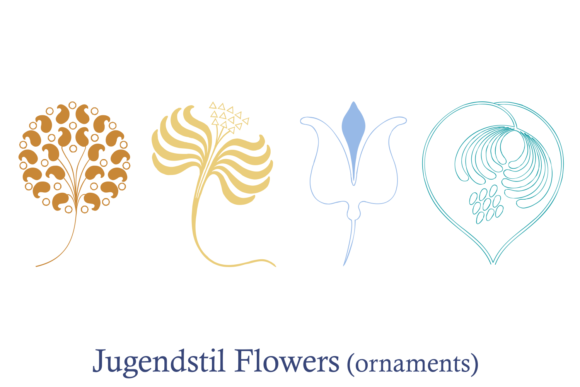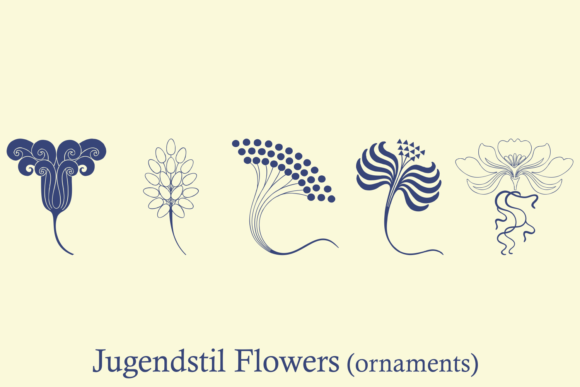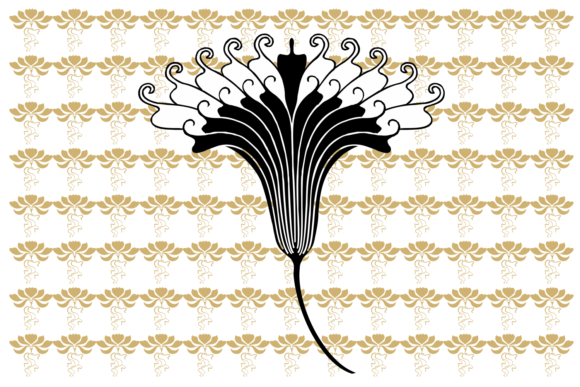
Introduction to Jugendstil Flowers Font
The Jugendstil Flowers are a collection of dingbats fonts with ornaments, leitmotivs and fleurons, free inspired in the visual style from the golden age of the Art-Nouveau graphic movement Included as a bonus is a pack with 20 colored eps advertising models in a Victorian style.
Key Features of Jugendstil Flowers Font